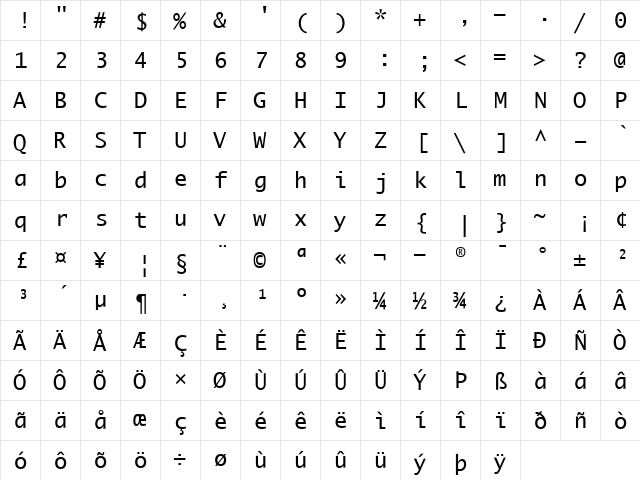
LucidaMonoEF Regular
Design Context for LucidaMonoEF Typeface
LucidaMonoEF brings the precise, column-aligned rhythm of monospaced typography to designs that value technical clarity and systematic order.
Well-suited to data-driven dashboards, coding tutorials, and any design that wants to reference the world of programming.
Pro Tip: Use LucidaMonoEF with slightly increased line-height for extended reading — fixed-width spacing can feel dense in longer passages without extra breathing room.